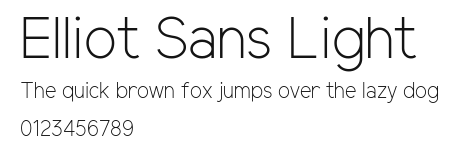
• Font Name: Elliot Sans Light
• Full Font Name: ElliotSans-Light
About Elliot Sans Light.ttf
Elliot Sans Light.ttf is a modern, elegant sans-serif font designed for ultimate readability and visual harmony. Perfect for branding, headlines, web design, and print materials.